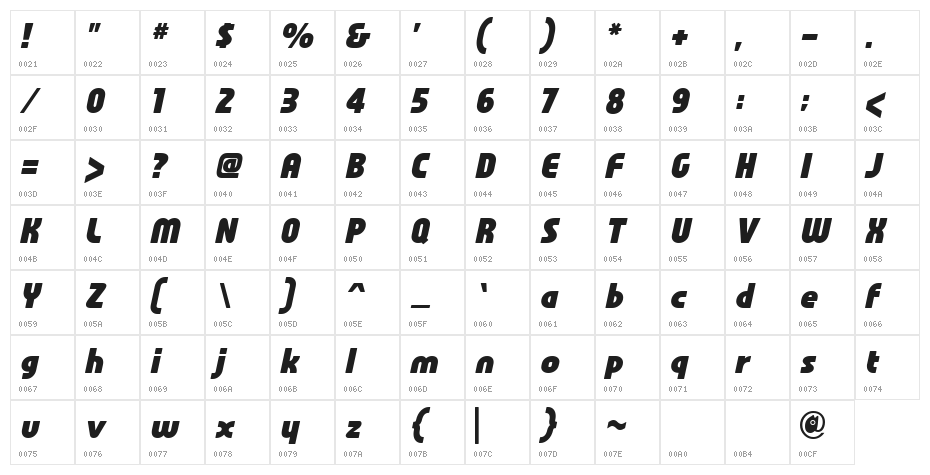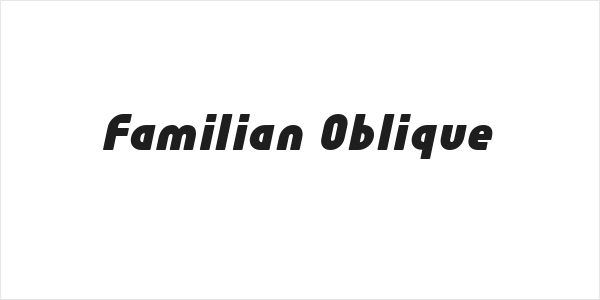
Familian Oblique Font
Familian Oblique Description
This font features a bold and dynamic style with a distinct oblique slant, giving it a sense of motion and energy. The characters are thick and rounded, providing a strong visual impact. The uppercase letters are particularly striking, with a uniform height and consistent stroke width. The lowercase letters maintain the same boldness, ensuring readability and cohesion across different text sizes. Numbers and special characters are designed with the same bold and slanted characteristics, making them stand out effectively. This font's overall appearance is modern and assertive, suitable for making a statement.
| Proposed Projects | Ideal for branding, advertising, headlines, and any project requiring a strong, modern aesthetic. |